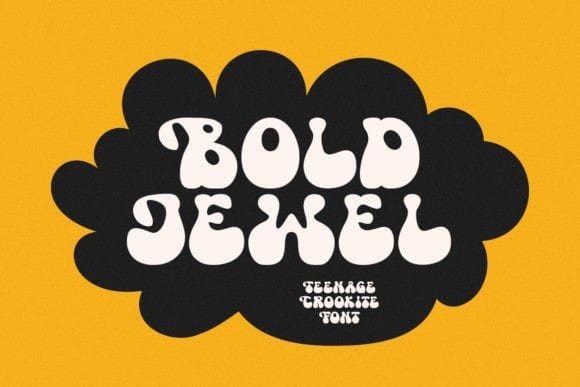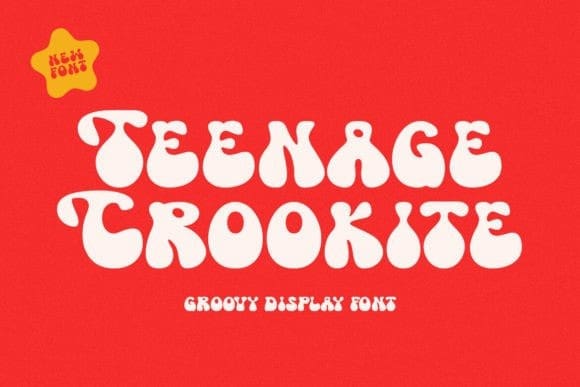
Teenage Crookite Font
Teenage Crookite Font – Groovy Display Font By Teenage Foundry – a groovy typeface that’s sure to transport you back to the funky, psychedelic era of the 60s and 70s! With its bold, playful style and unique character, this font is perfect for adding a retro feel to your design projects.